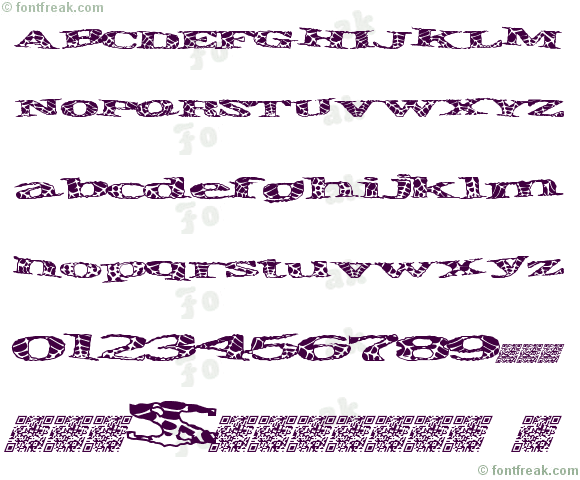
PirateSpider
The PirateSpider font by XEROGRAPHER FONTS is a distinctive display typeface that captures the adventurous spirit of the high seas. Released in 2014, this font showcases a unique blend of rugged charm and artistic flair, making it a perfect choice for a variety of creative projects. The font features irregular stroke weights and an uneven baseline that contribute to its playful, hand-drawn appearance. Its decorative elements, reminiscent of pirate themes, include jagged edges and a textured finish that evoke the feel of aged parchment.
Thanks to its eye-catching design, the PirateSpider font is exceptionally versatile. It shines in use cases such as movie posters, where it can effectively convey themes of adventure and rebellion. Additionally, it is well-suited for themed party invitations, particularly for events that celebrate pirate lore or fantasy. Restaurant menus with a nautical twist can benefit from this font's whimsical characteristics, creating an inviting atmosphere for diners. Graphic designers looking to add a unique touch to their projects will find the font invaluable, while small business owners can use it to enhance branding materials.
What sets the PirateSpider font apart is its ability to blend fun and functionality. Its bold, adventurous aesthetic can instantly draw attention while maintaining readability, making it an essential tool for anyone looking to create memorable visual content. For those interested, the PirateSpider font free download offers an exciting opportunity to elevate design projects with a unique flair.